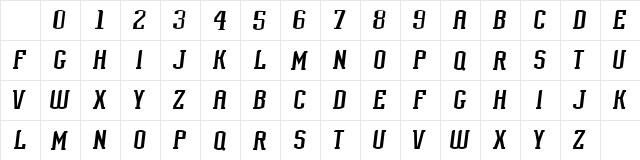
NHL Buffalo Regular
Design Context for NHL Buffalo Typeface
NHL Buffalo takes a measured approach to typography — its balanced proportions and neutral character make it a reliable workhorse for both digital and print work.